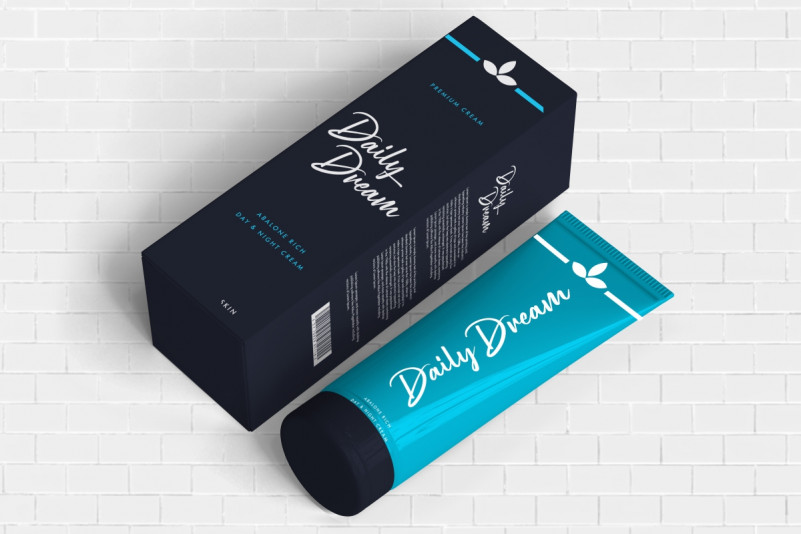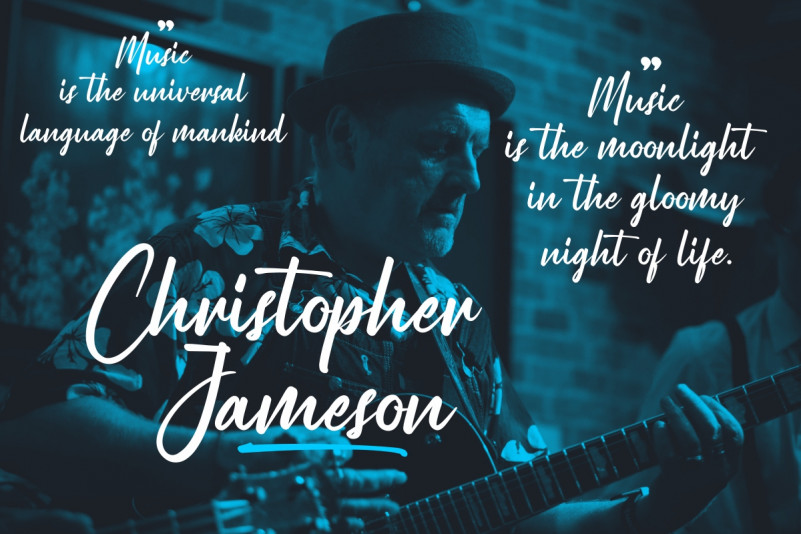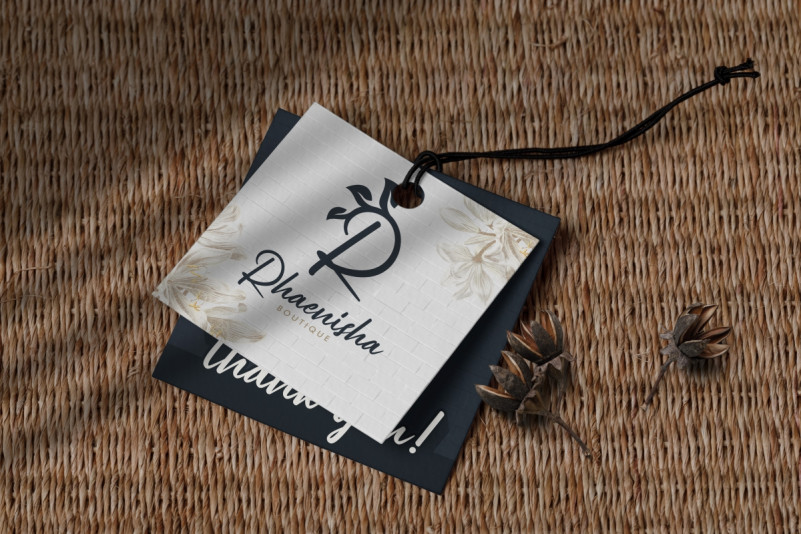
Perfect Bright Font
Perfect Bright Script Font
This font is remotely made in Bandung and Garut, two beautiful cities in Indonesia. The font was handcrafted for any your special projects including : headlines, promotion, events, branding, advertising, magazine, signage, invitation, stationery, social media posts, label, or and any projects that need unique strong style. The theme/industries of this font is makeup, cosmetic, culinary, restaurant, café, wedding etc
Perfect Bright Font includes full set of gorgeous uppercase and lowercase letters, numerals, a large range of punctuation and ligatures. All lowercase letters include beginning and ending swashes, giving a strong unique style.